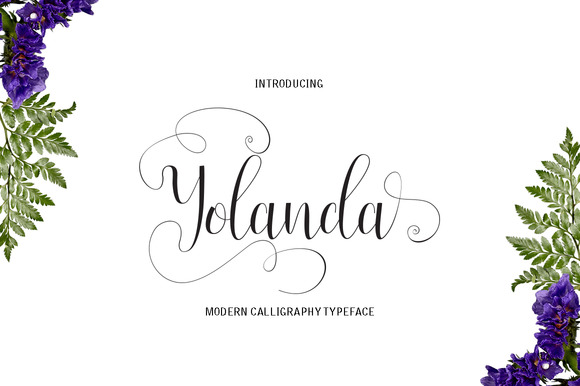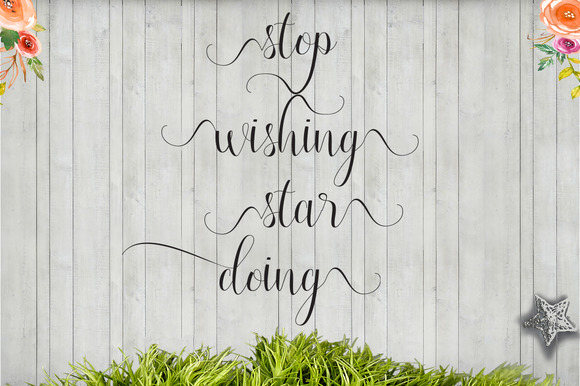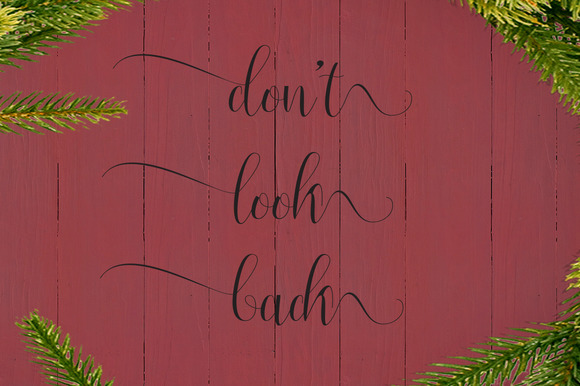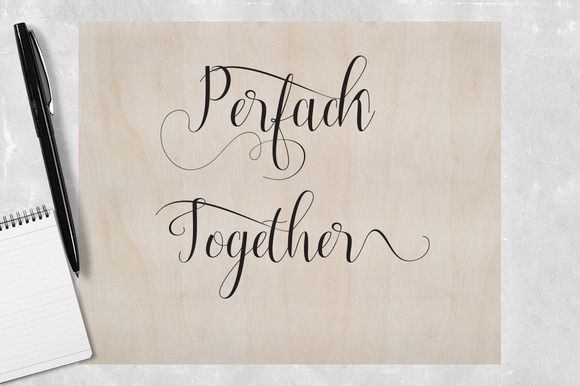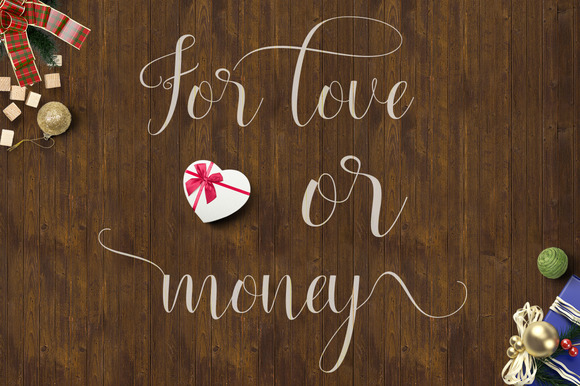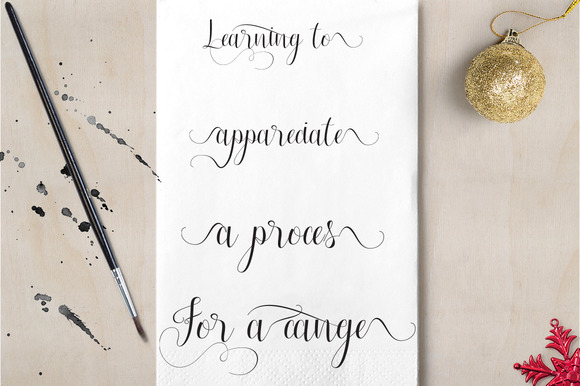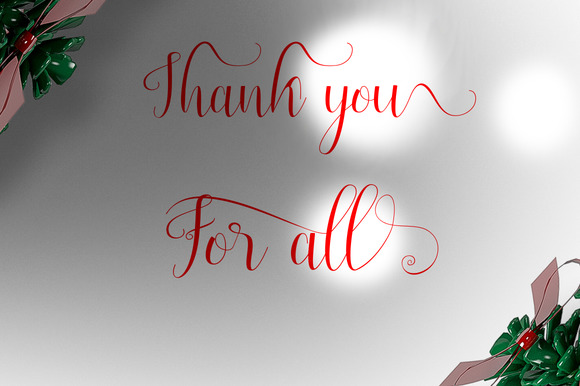
Yolanda Font
About Yolanda Font
Yolanda is a modern calligraphy typeface.
It has a very natural writing style and a unique form of calligraphy. Very suitable for a wide range of designs.